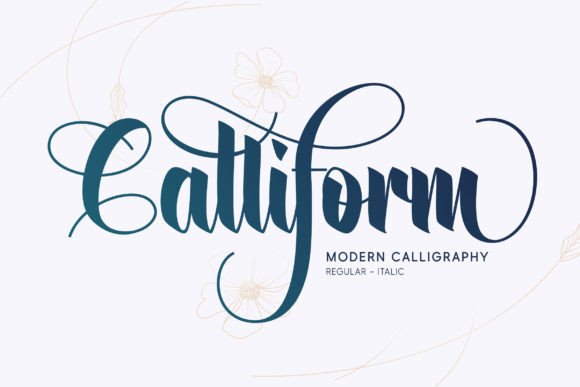
The Calliform Font: A Modern Script Calligraphy Dream
I’ll never forget the time I was working on a wedding invitation design project, and my client asked for a font that exuded elegance and sophistication. I scoured the internet, tried out countless fonts, but nothing seemed quite right. That was until I stumbled upon Calliform Font. With its sharp strokes and carefully designed curves, it was love at first sight! ✨ In this article, I’ll share my experience with Calliform Font, its features, and how to make the most of it in your designs.
A Closer Look at Calliform Font
Calliform Font is a modern script calligraphy font that brings an elegant classical touch to your designs. Its unique blend of sharp strokes and flowing curves makes it perfect for a wide range of projects, from logos and branding to greeting cards, wedding designs, and more.
One of the standout features of Calliform Font is its impressive collection of 70 decorative alternate characters. These alternates offer a wealth of creative possibilities, allowing you to customize your text and make it truly unique.
Honest Review: What I Love and What I Don’t
- ✨ Elegant and sophisticated design
- ✅ Highly versatile and suitable for various design projects
- 🎉 70 decorative alternate characters for added creativity
- 🔍 Carefully designed curves and sharp strokes for a unique look
The Not-So-Good Stuff
- ⚠️ Some users may find the font a bit challenging to read in smaller sizes
- 🤔 Limited use in body text due to its script nature
The Story Behind Calliform Font
Calliform Font was designed with the goal of creating a modern script calligraphy font that would bring a touch of elegance and sophistication to designs. The designer aimed to craft a font that would be both versatile and unique, with a blend of sharp strokes and flowing curves. The result is a font that’s perfect for a wide range of projects, from formal events to creative branding.
Q: What type of projects is Calliform Font best suited for?
A: Calliform Font is suitable for a wide range of projects, including logos, branding, greeting cards, wedding designs, printing, advertising, packaging, wall decoration, titles, web design, and more.
Q: Can I use Calliform Font for body text?
A: While Calliform Font is a beautiful font, it’s primarily designed for titles and headings. Its script nature may make it challenging to read in smaller sizes, so it’s best used sparingly.